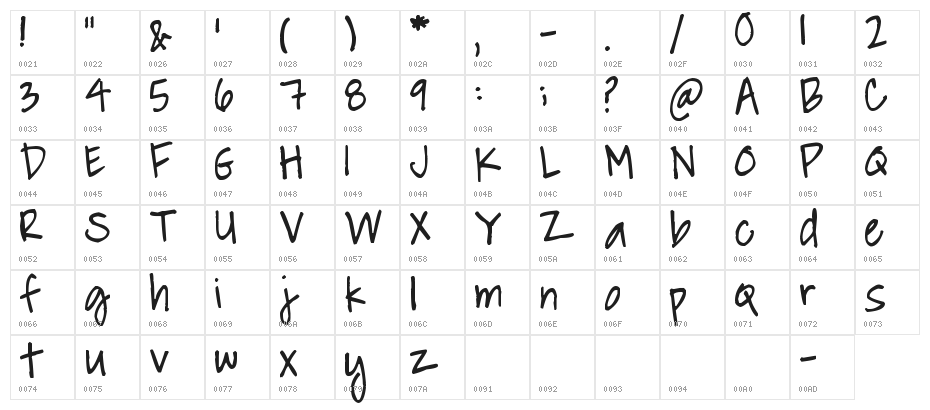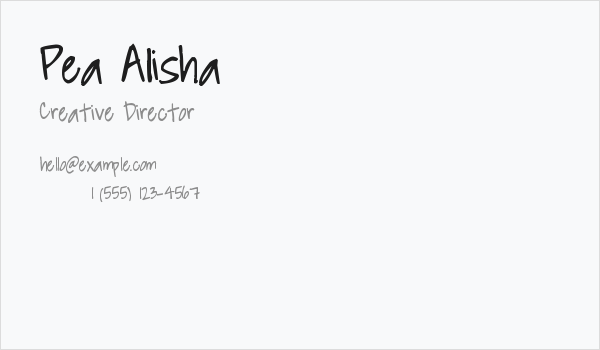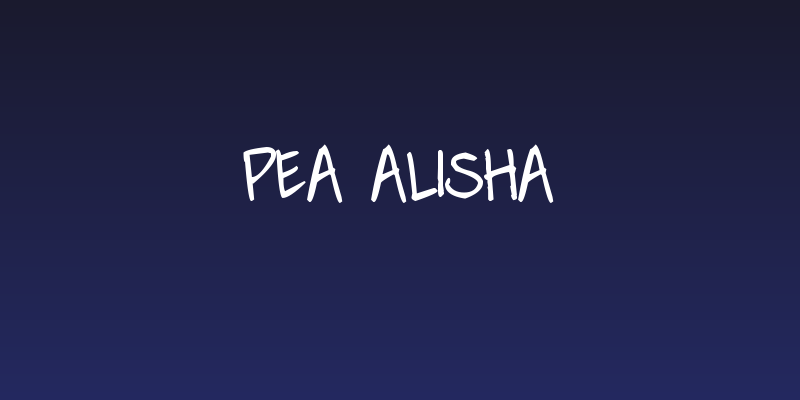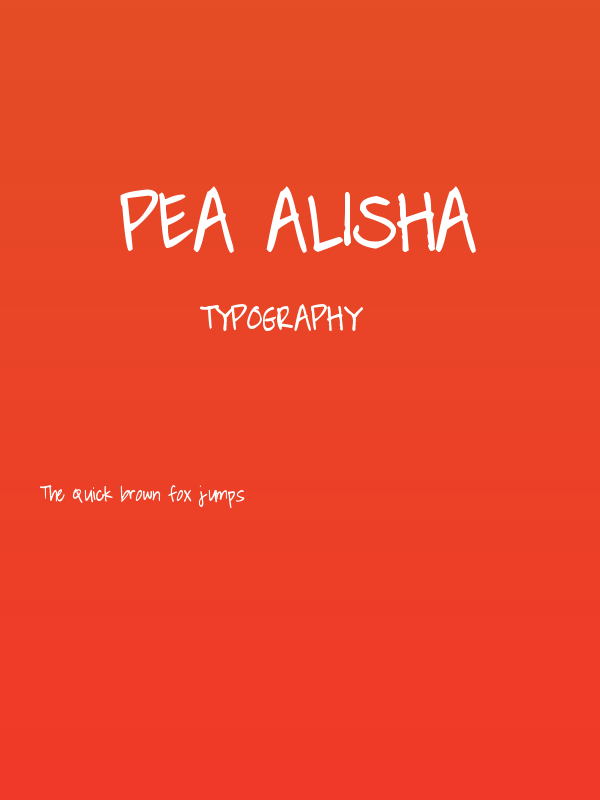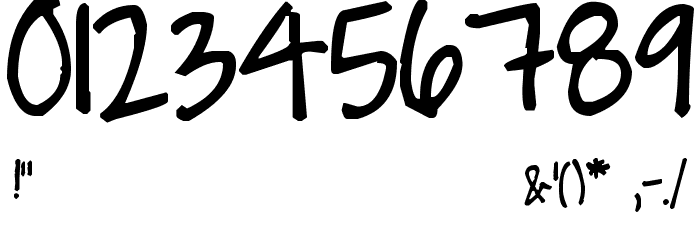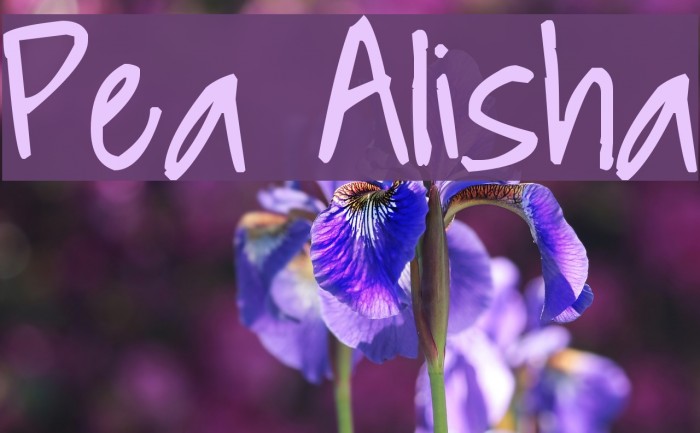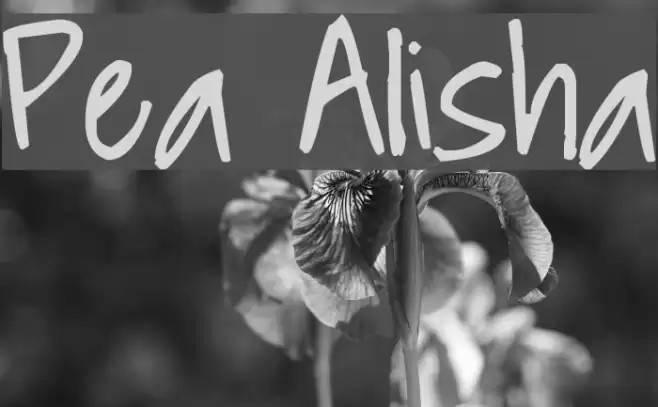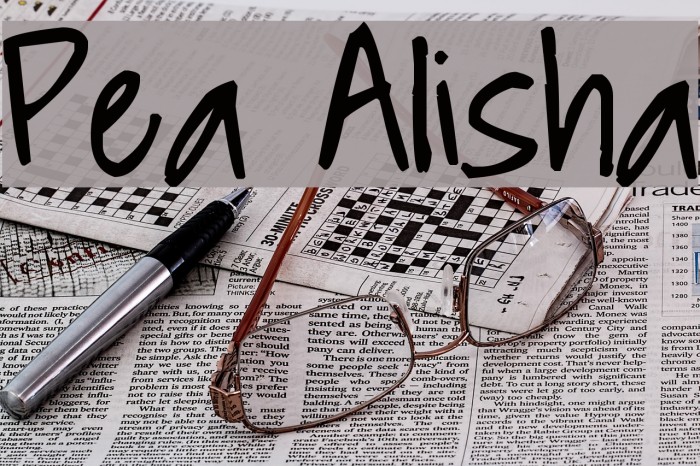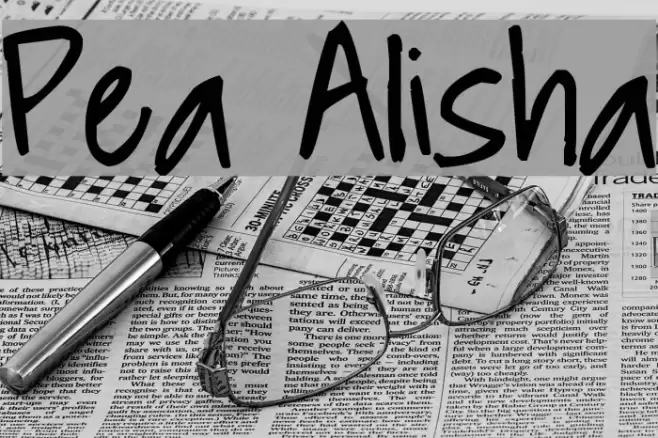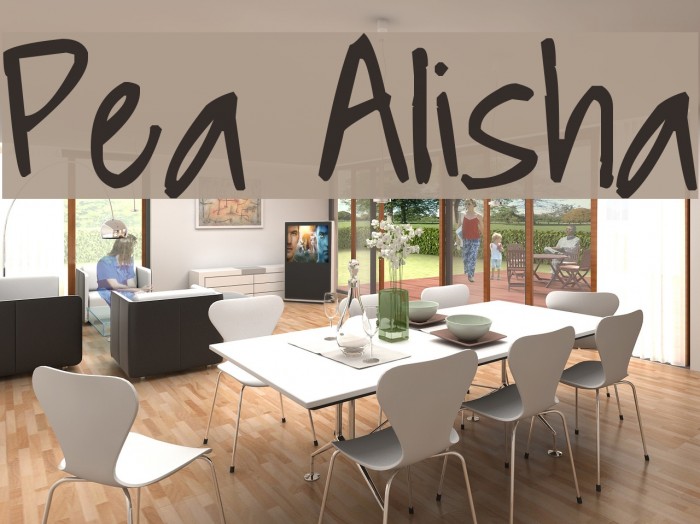
Pea Alisha Font
Pea Alisha Description
This font features a playful and casual handwritten style, characterized by its informal and friendly appearance. The letters are slightly slanted, giving a dynamic and lively feel. The strokes are uneven, mimicking the natural flow of handwriting, which adds a personal touch. The uppercase and lowercase letters are well-balanced, with a consistent rhythm throughout. The numerals and special characters maintain the same handwritten charm, making the font versatile for various creative projects.
| Overall Style | Casual |
| Use Case | Logos, Headlines, Informal text |
| Proposed Projects | Ideal for personal notes, greeting cards, social media graphics, and informal branding projects. |